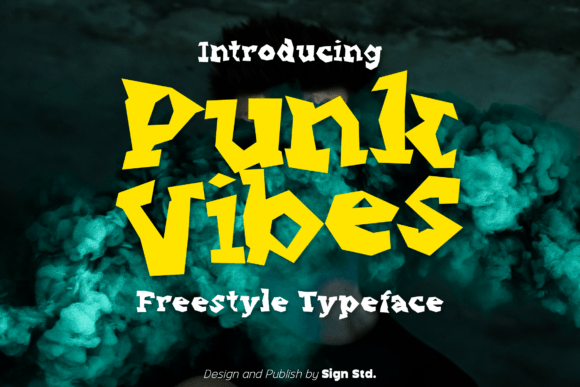
Unleash the captivating power of Punk Vibes Font, a remarkable display font family that ignites your creativity and connects you with the raw energy of nature. Crafted by the ingenious font artisans at Sign Studios, Punk Vibes is a typographic masterpiece that transforms your digital posters, brochures, apparel, logotypes, and any print project into captivating expressions of art.
Immerse yourself in the vibrant personality of Punk Vibes, a font that pulsates with life and individuality. Its carefully crafted glyphs dance across the page, evoking the untamed spirit of rebellion. Each letterform is a testament to the boundless imagination of the artist, capturing the essence of nature's untamed beauty.
With Punk Vibes, you can effortlessly make a striking visual impact that leaves an indelible impression. Whether you're crafting posters that demand attention or designing brochures that captivate readers, this font is your ultimate weapon. Its bold, confident strokes command attention, while its organic flow adds a touch of elegance and sophistication.
Dive into the limitless possibilities of Punk Vibes, a font that defies convention and opens up new horizons of creativity. Experiment with its wide range of glyphs and alternates, accessible with ease through PUA encoding, to create truly unique typographic compositions. Unleash your inner artist and let your imagination soar as you craft designs that resonate with your audience.